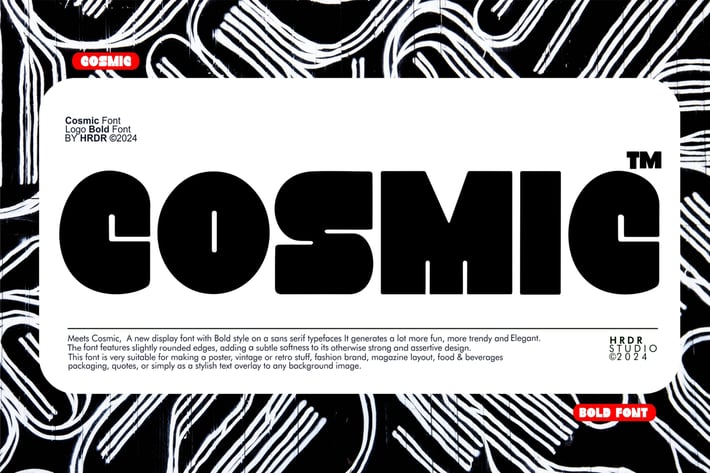
Cosmic - Logo Bold Font
Meets Cosmic, A new display font with Bold style on a sans serif typefaces It generates a lot more fun, more trendy and
Elegant. The font features slightly rounded edges, adding a subtle softness to its otherwise strong and assertive design.
This font is very suitable for making a poster, vintage or retro stuff, fashion brand, magazine layout, food & beverages
packaging, quotes, or simply as a stylish text overlay to any background image.